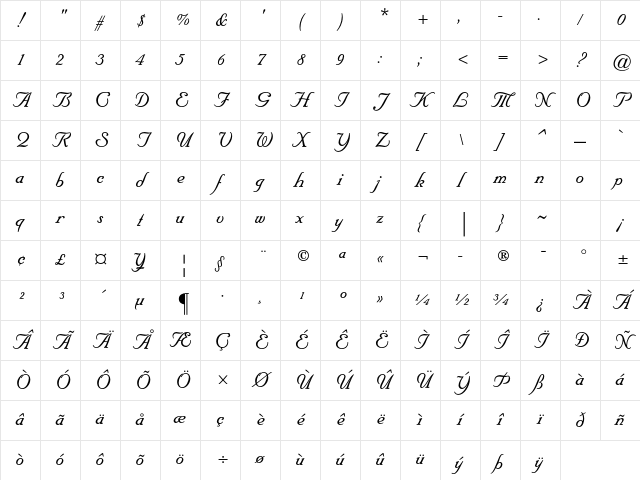
Floridian Script Std Regular
Design Context for Floridian Script Std
Floridian Script Std flows with the natural rhythm of handwritten lettering, making it ideal for designs that call for warmth and personal expression.
Font Pairing: Combine Floridian Script Std with a simple geometric sans for maximum contrast - the tension between flowing curves and clean structure is a classic typographic pairing.
Pro Tip: Use Floridian Script Std for short runs of text - names, titles, or taglines. Extended body copy in script faces tires the eye quickly.